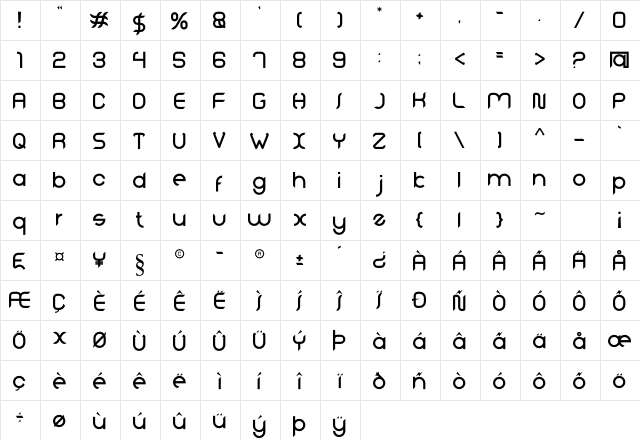
Roasted Regular
| Designer | Green Adventure Studio. 2019 |
Design Context for Roasted Typeface
Roasted offers clean, dependable letterforms without strong stylistic allegiance, making it a practical choice for designers who need flexibility.